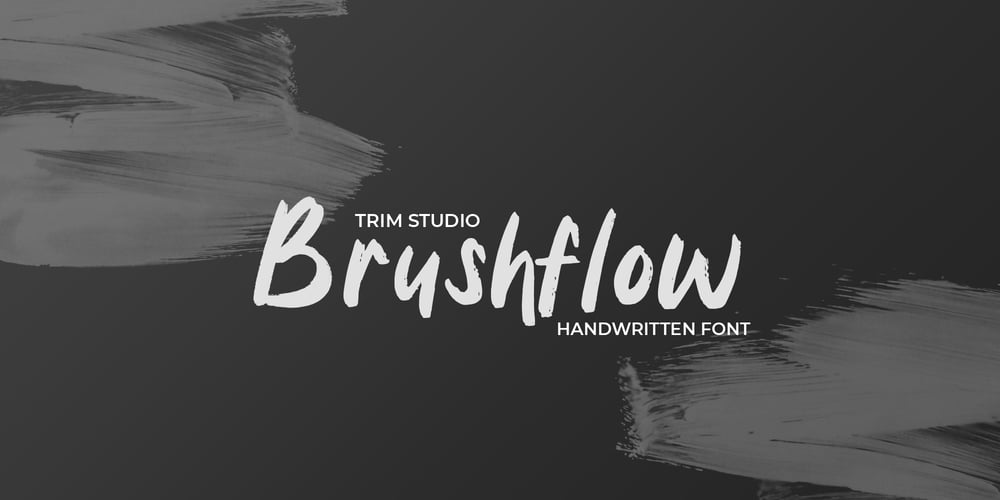
Brushflow
Brushflow font
Brushflow Font Family was designed by Deri Kurnia and published by Trim Studio. Brushflow contains 1 styles and family package options. **Brushflow** font is a bold and simple handwritten brush font that is perfect for creating designs with a personal touch. The thick brush strokes of this font give it an impactful and commanding presence, making it perfect for titles, headlines, and other design elements that need to stand out. Thank you for let us be your design partner, If you have any questions please don’t **hesitate** to drop me a message